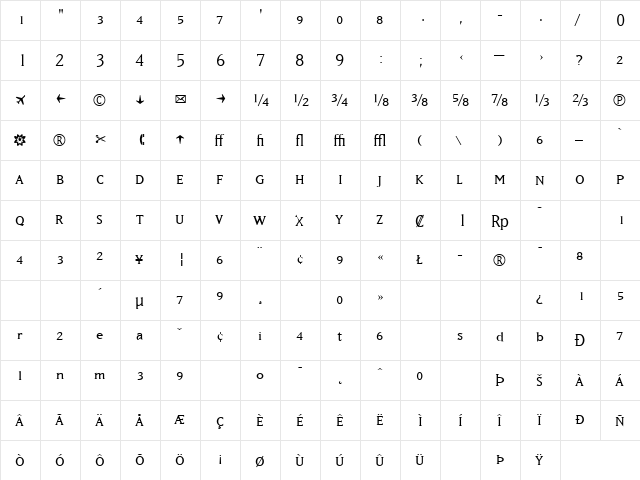
MatrixBookFractions Regular Font Preview
MatrixBookFractions Regular
Design Context for MatrixBookFractions Typeface
MatrixBookFractions is a composed and adaptable typeface that performs quietly and consistently across a wide range of design contexts.